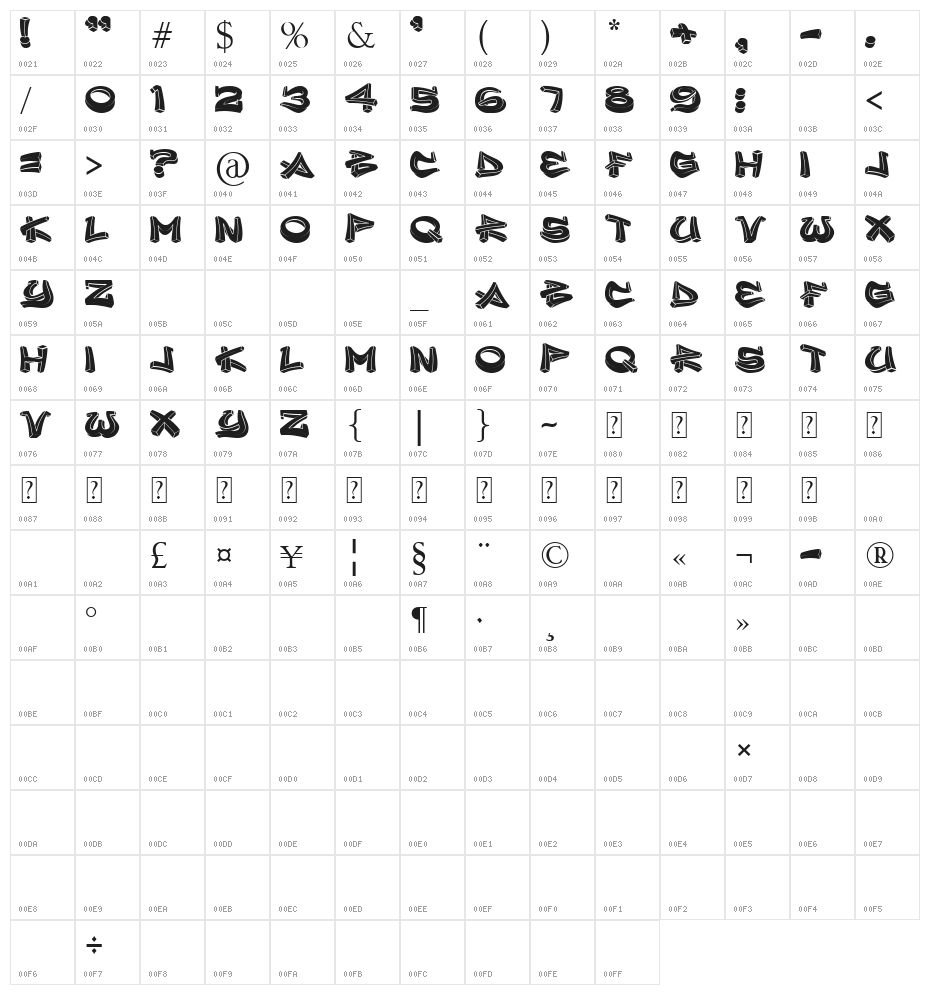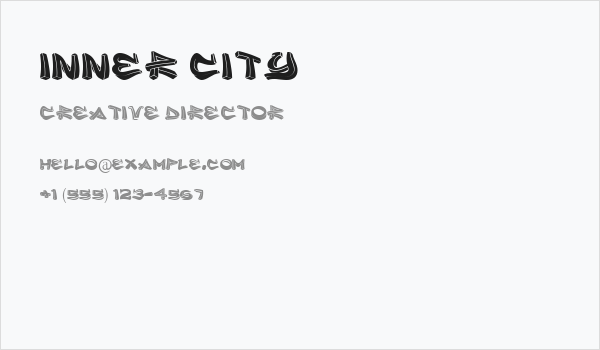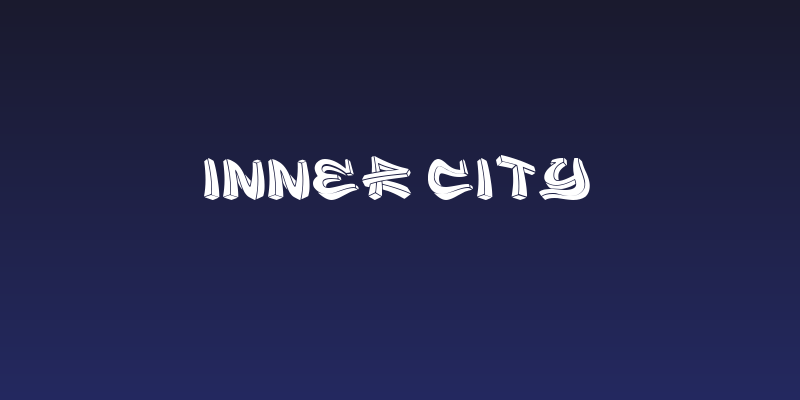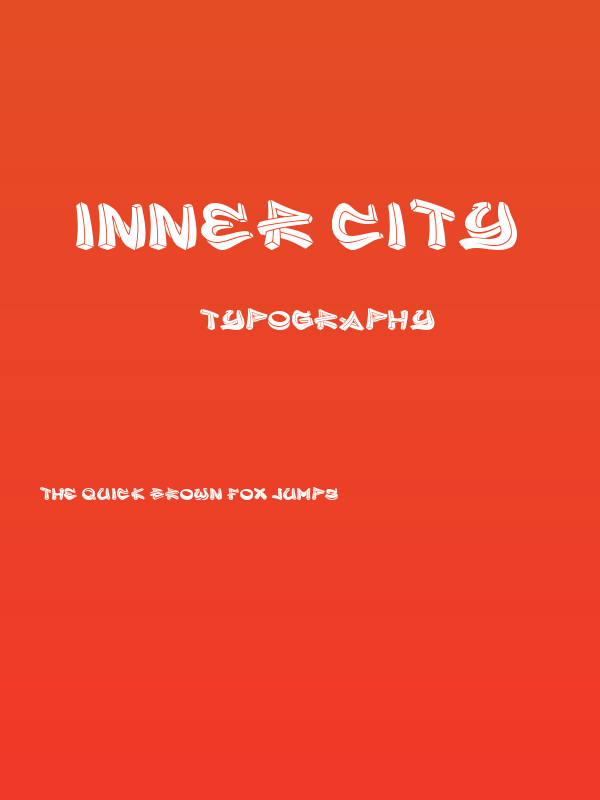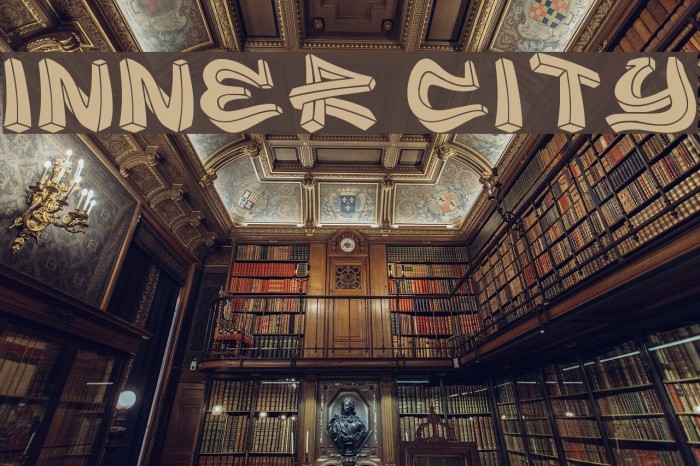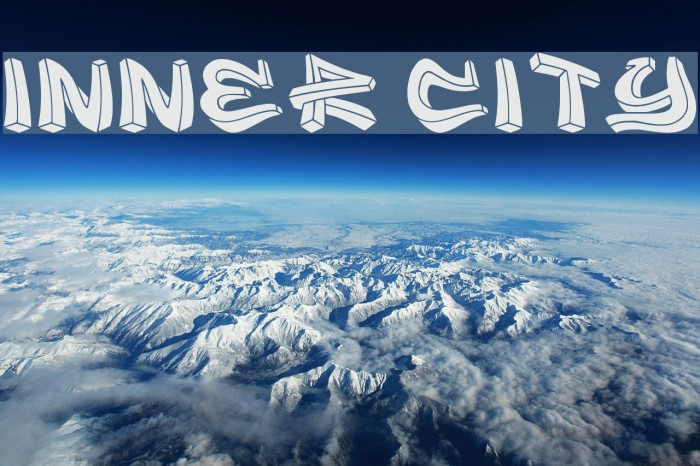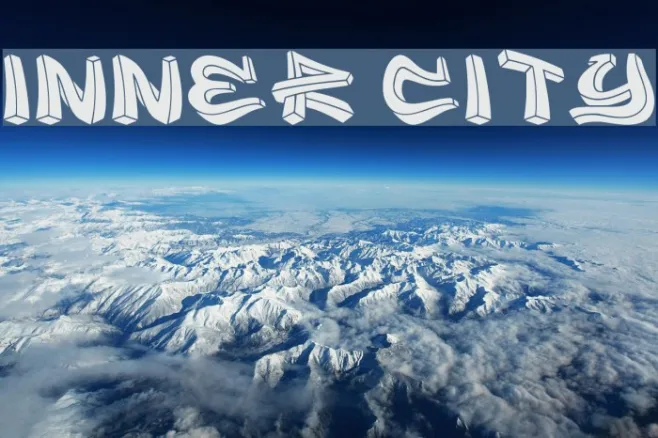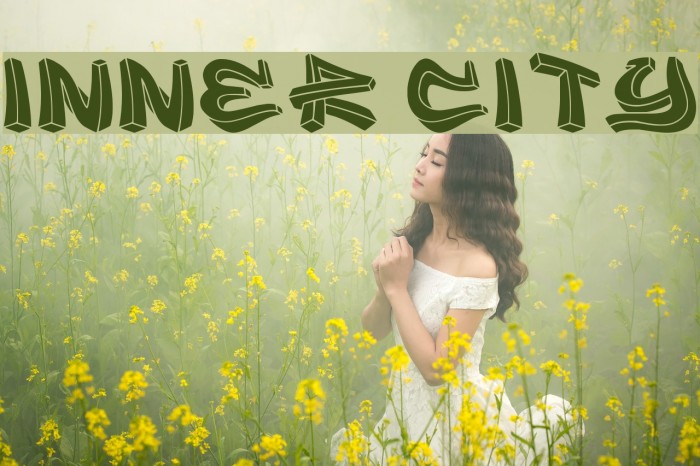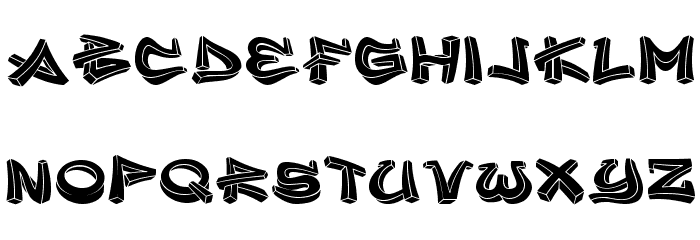
inner city Font
inner city Description
This font features a bold, urban style with a three-dimensional effect, giving each character a sense of depth and movement. The letters are designed with sharp angles and thick strokes, creating a dynamic and edgy appearance. The font's unique structure is reminiscent of graffiti art, making it stand out with its bold presence. The characters are tightly spaced, enhancing the compact and impactful look. This font is ideal for projects that require a strong visual statement, capturing attention with its distinctive and modern design.
| Proposed Projects | Ideal for street art designs, urban-themed posters, music album covers, and edgy branding projects. |